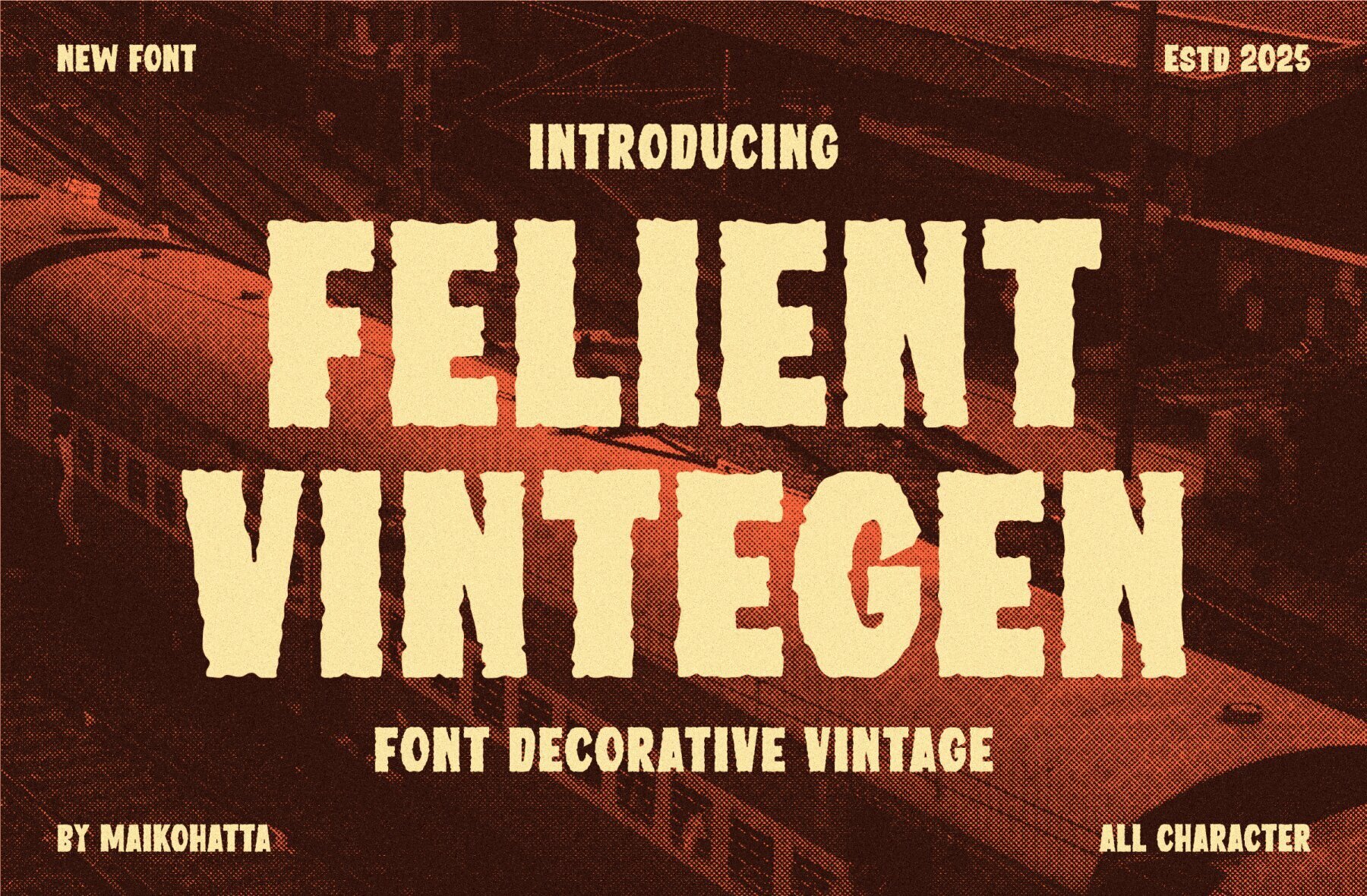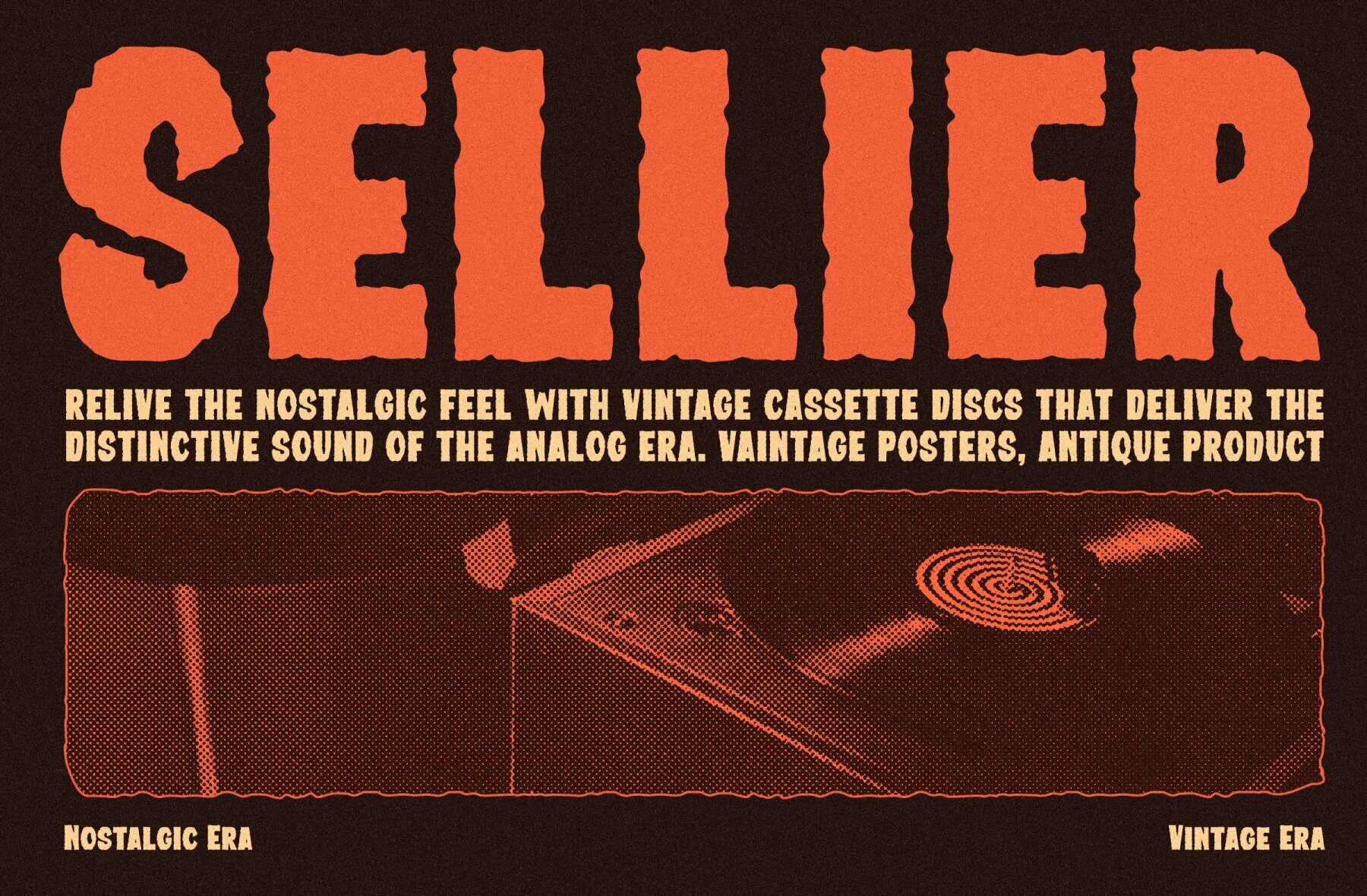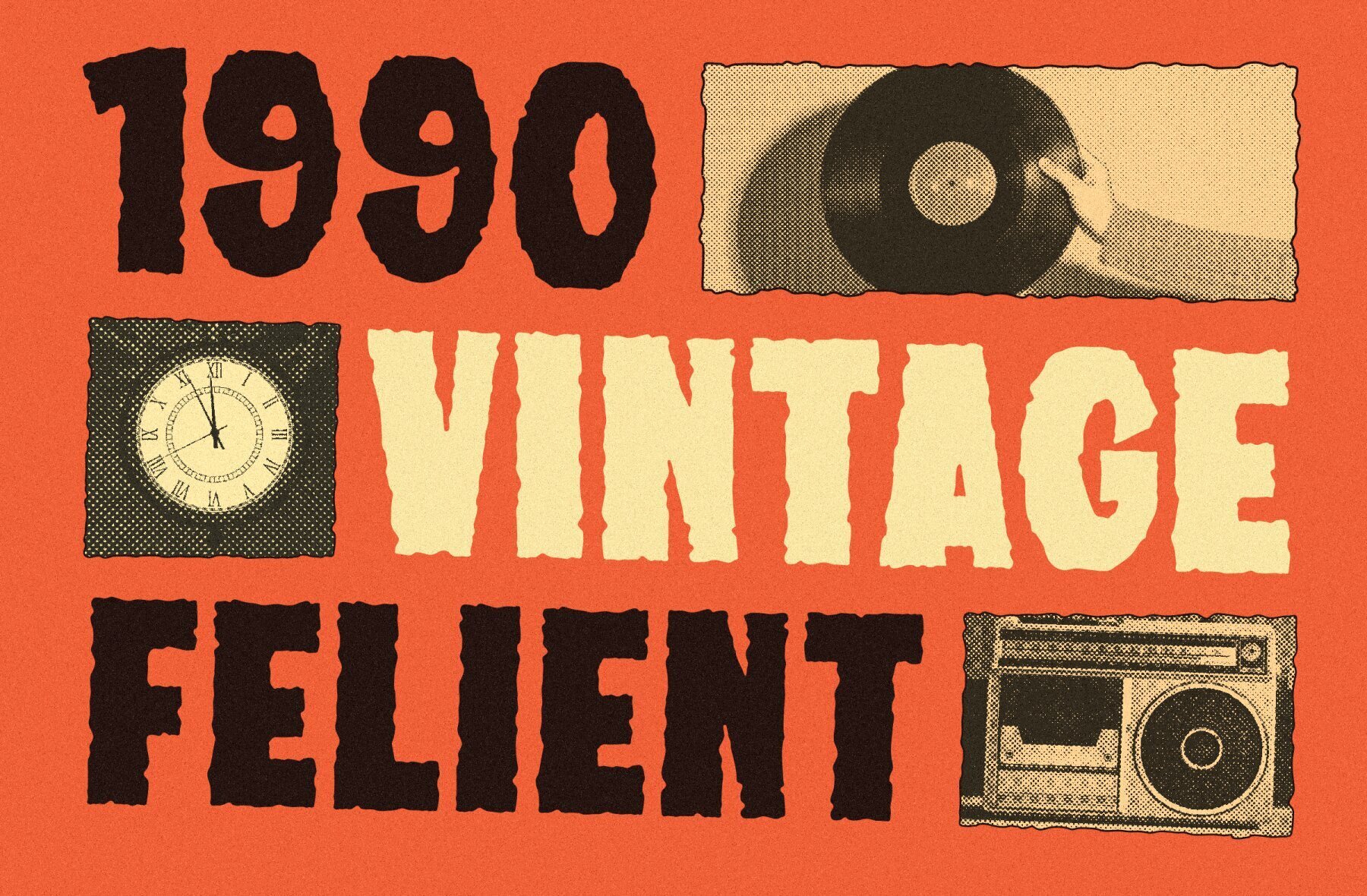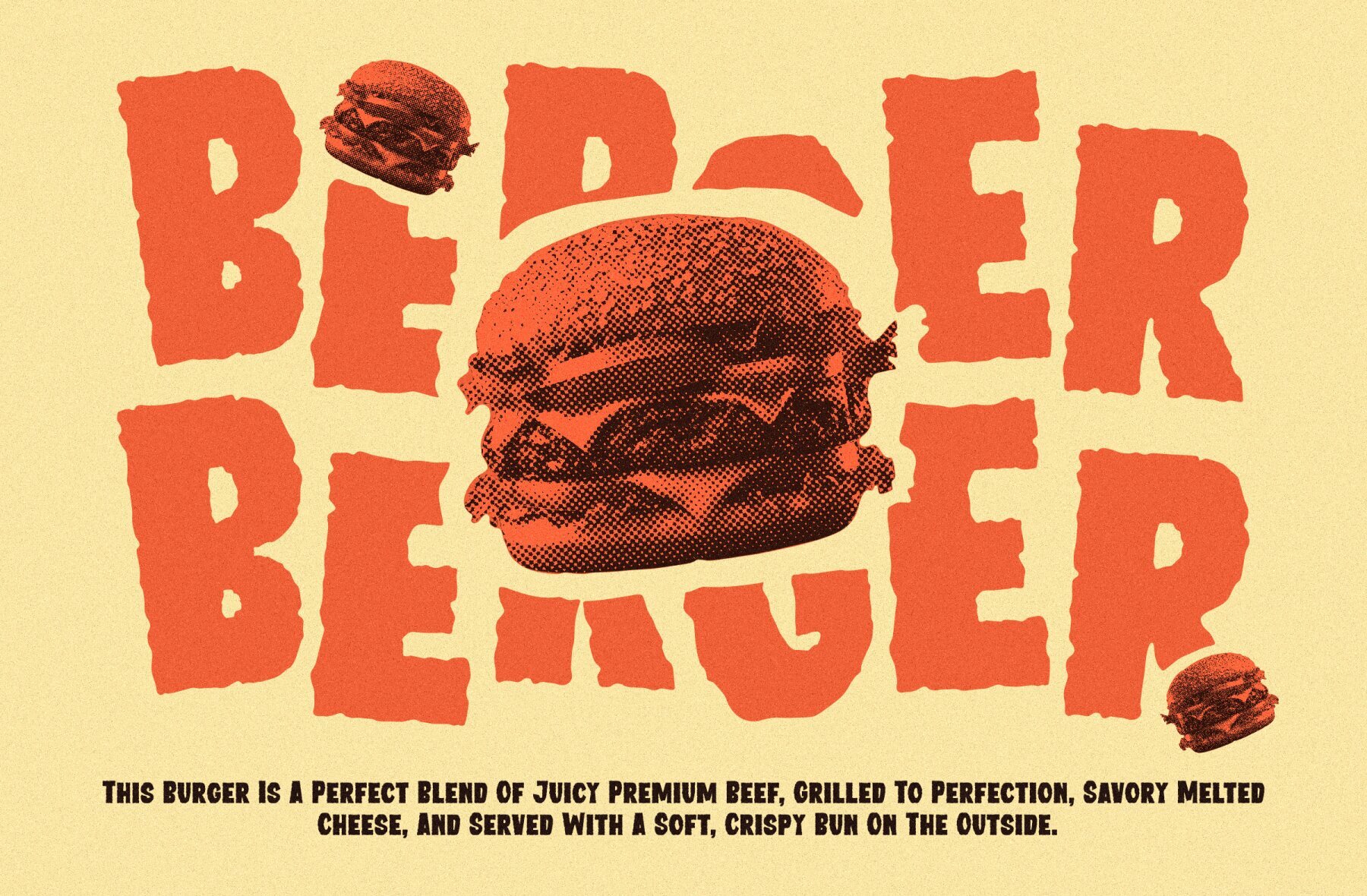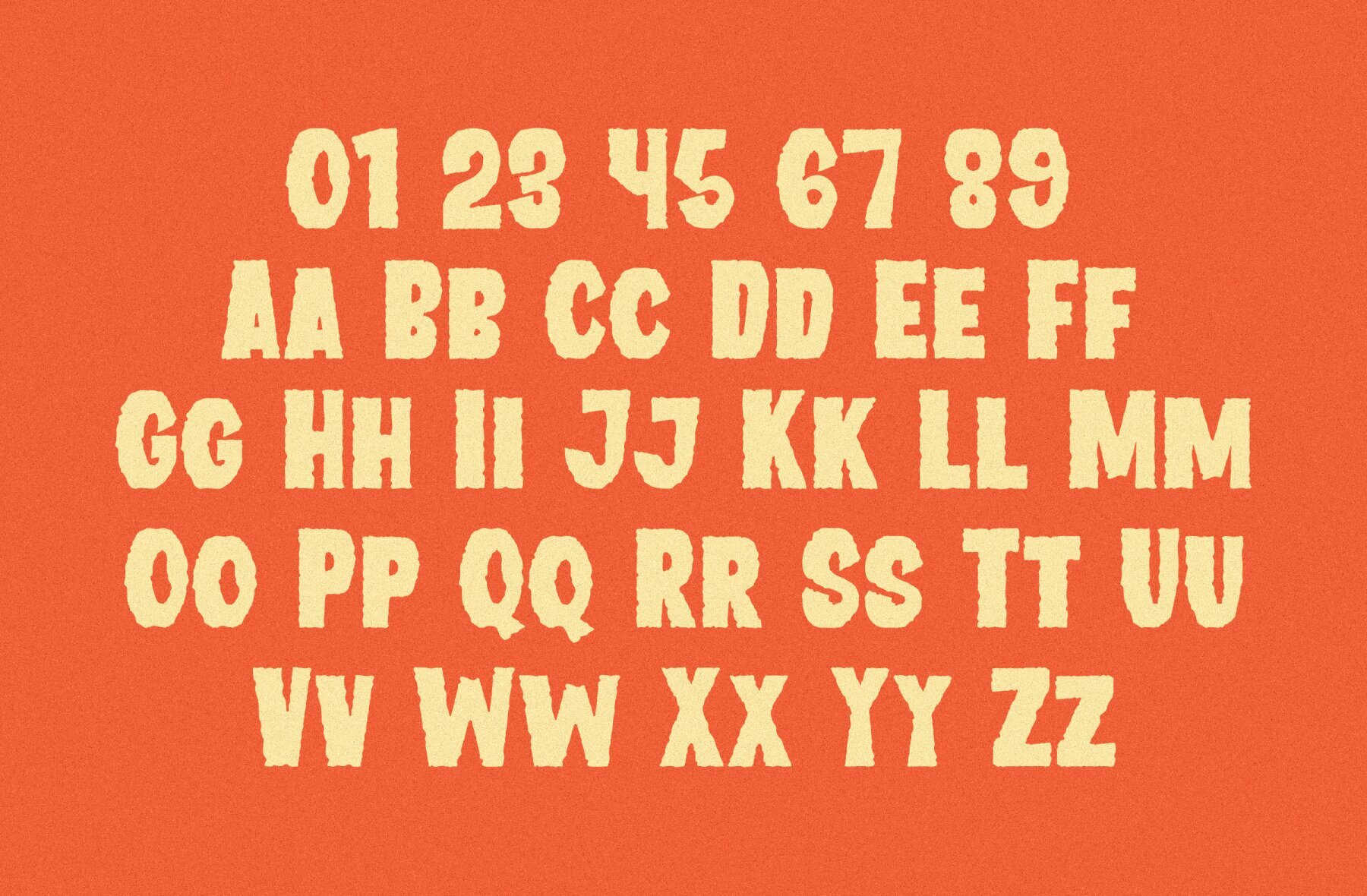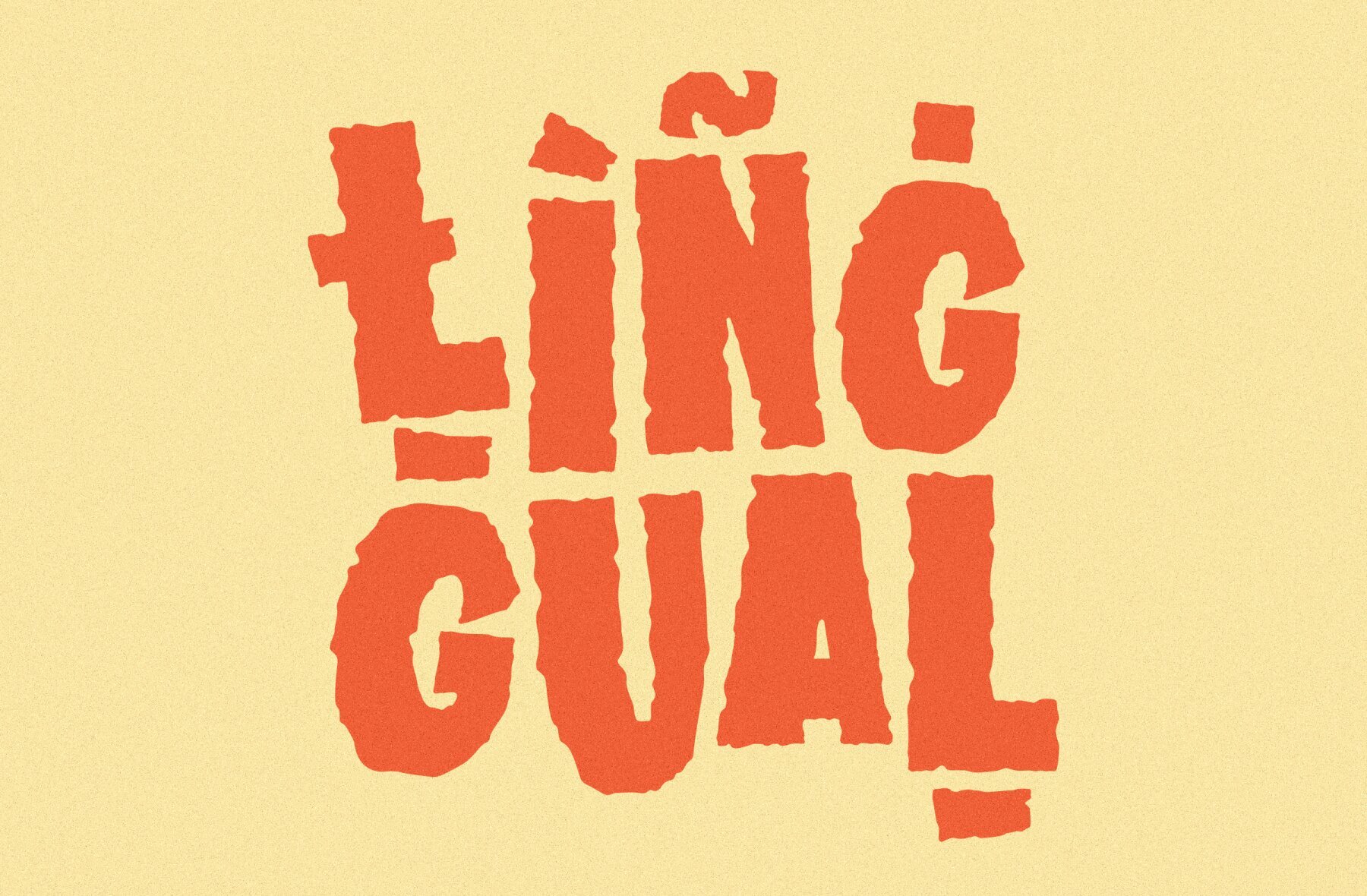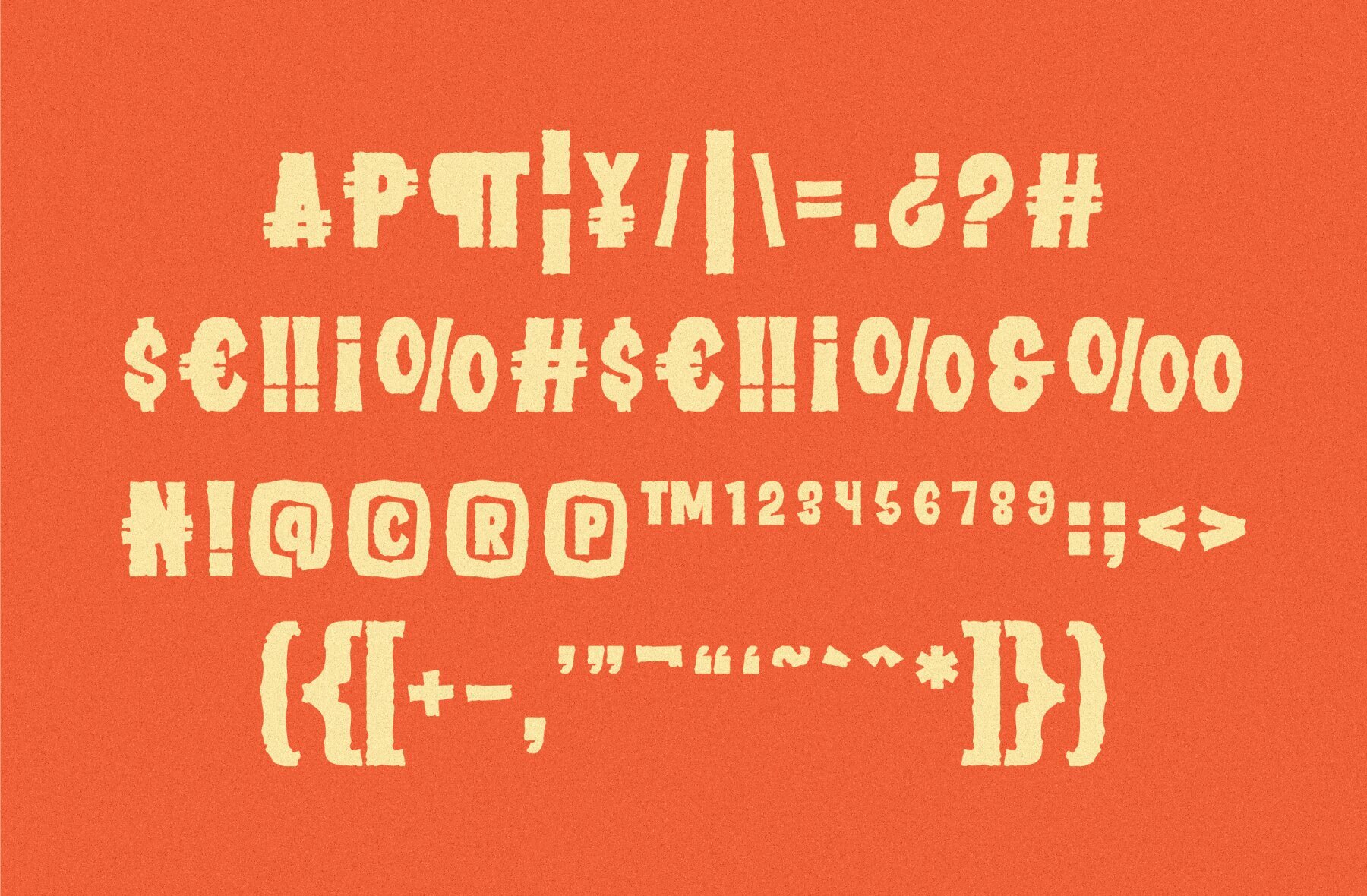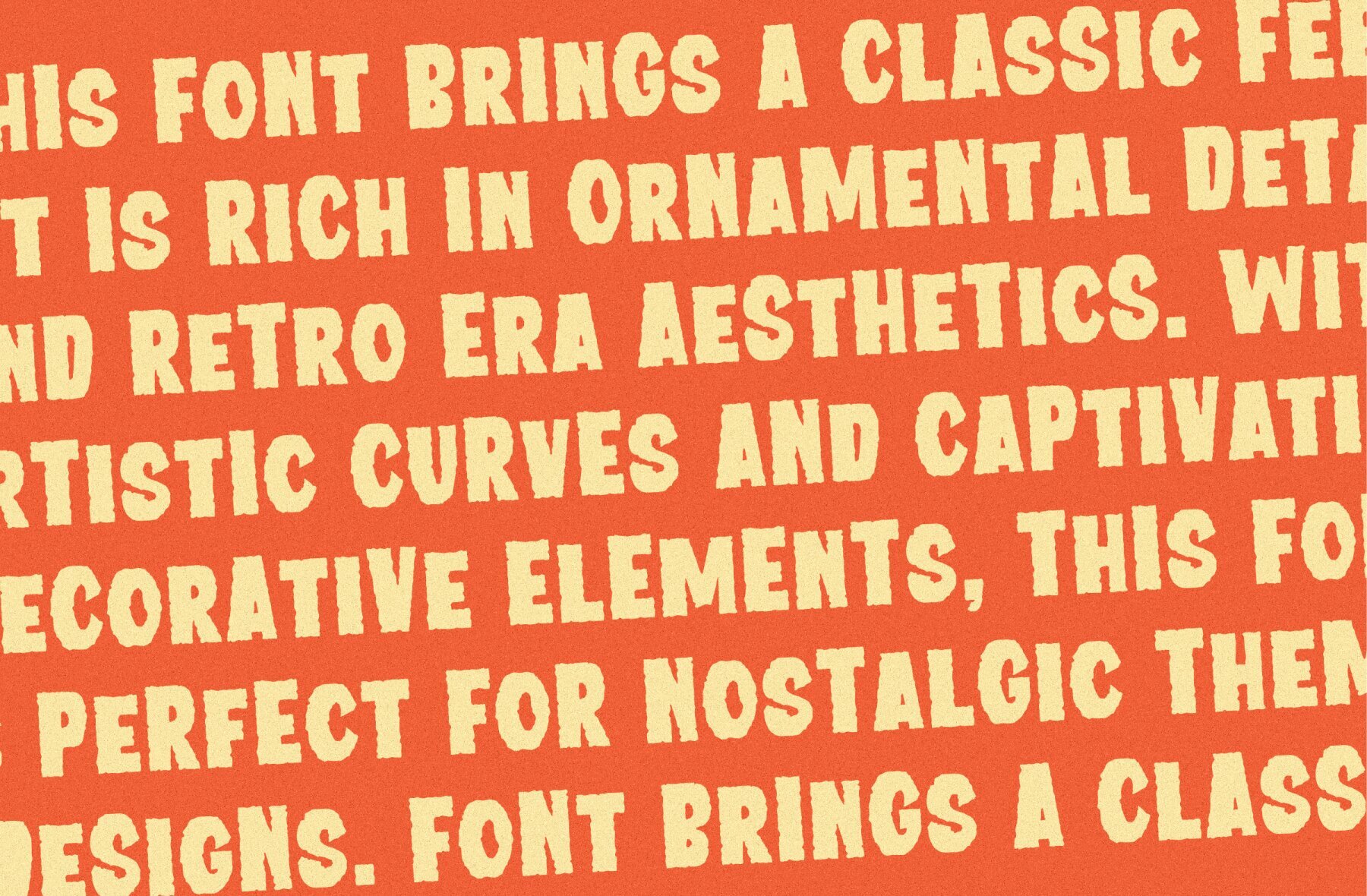
Felient Vintegen Font
FELIENT VINTEGEN
Felient Vintegen embodies the essence of classic ransom typography with a vintage flair and a touch of rebellious grit. This distinctive typeface is ideal for projects that demand a bold, unconventional aesthetic. Felient Vintegen seamlessly merges traditional and disruptive styles to offer three versatile options, making it a favorite among designers looking to push creative boundaries.Felient Vintegen: Decorative Vintage Font with Edge